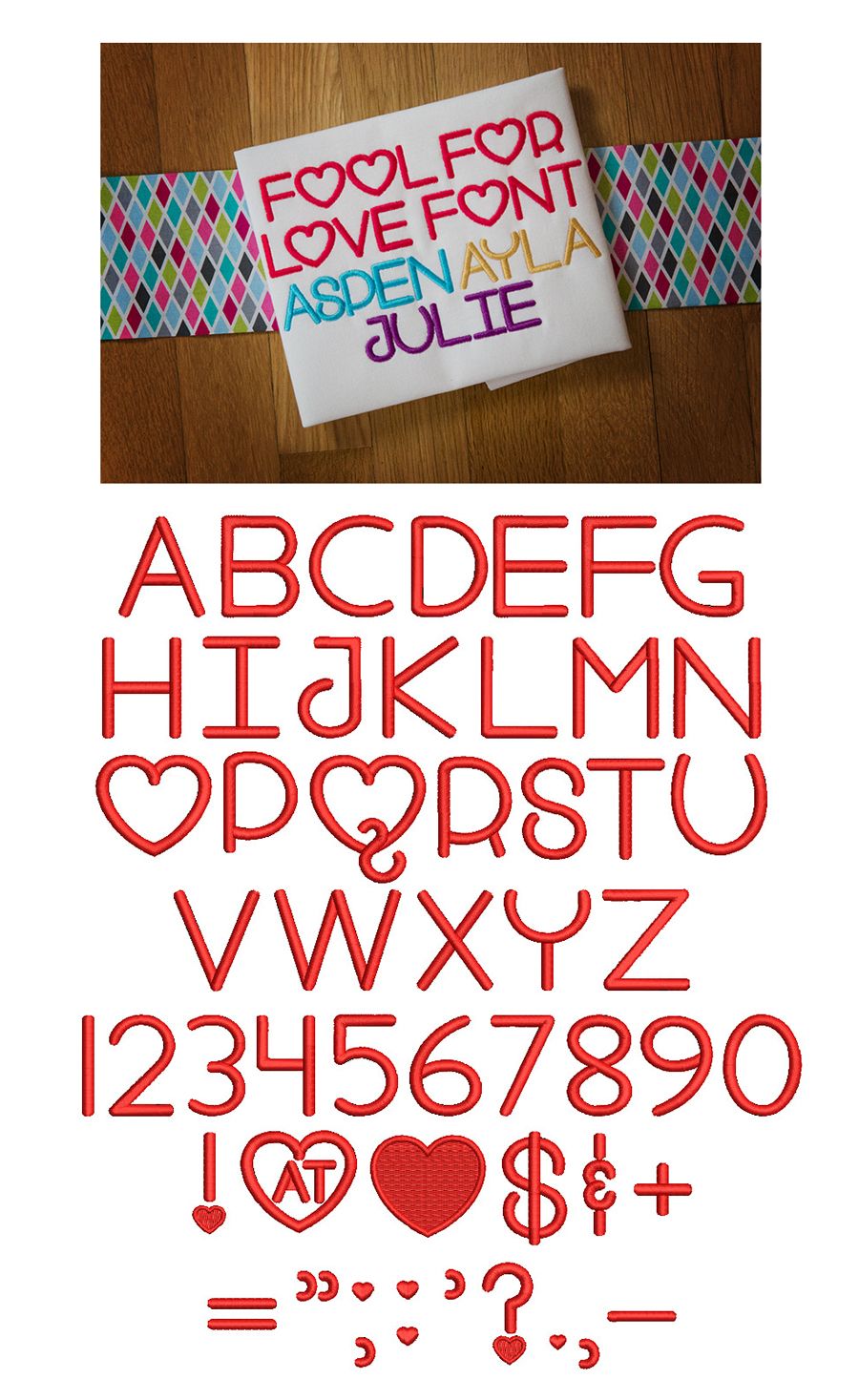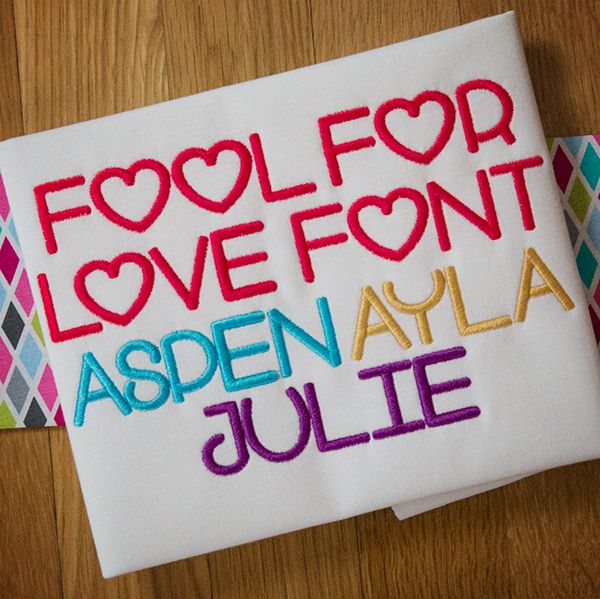
Here is a super cute and simple font great for Valentine's Day..or any day! This is a unicase font with some really cute symbols and renditions of the letters O and Q in heart form. Love is in the air! Ā All of our font alphabets are 100% manually digitized to bring you maximum stitch quality.